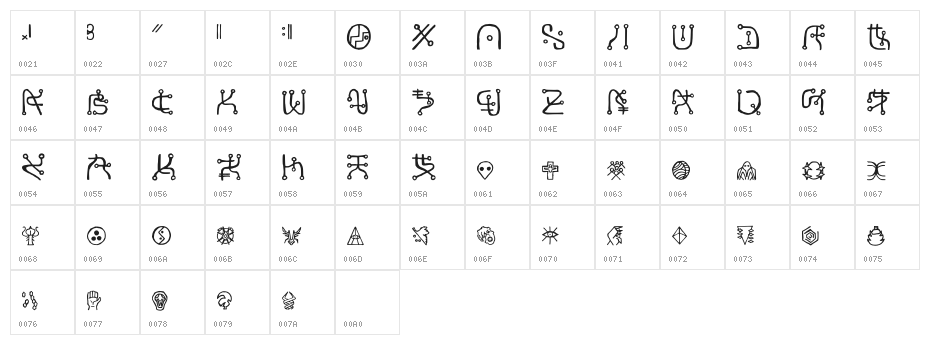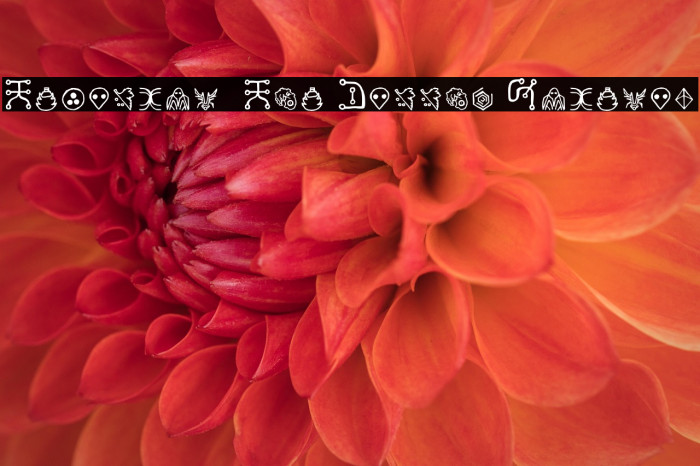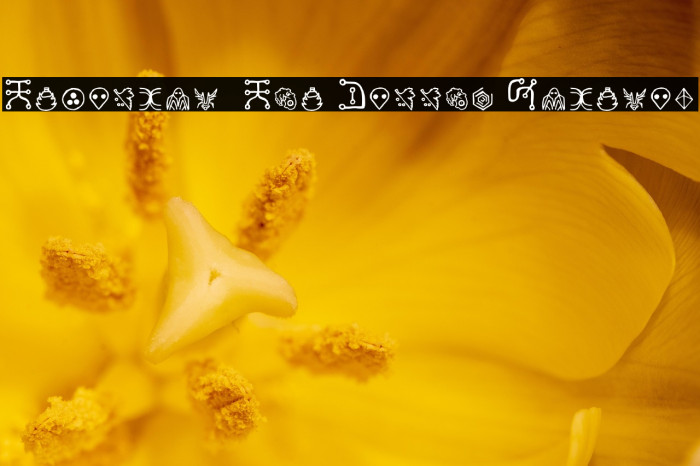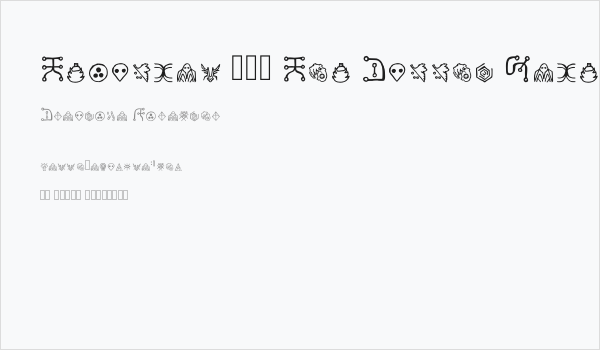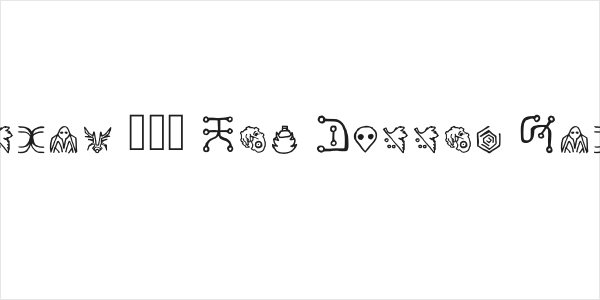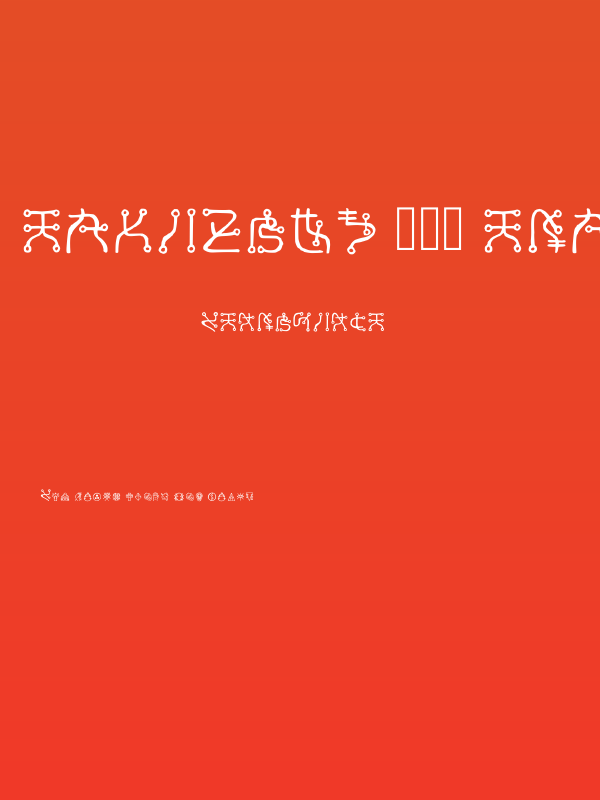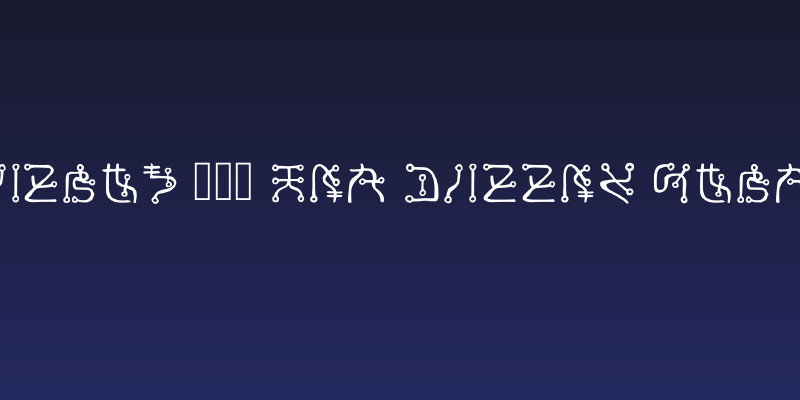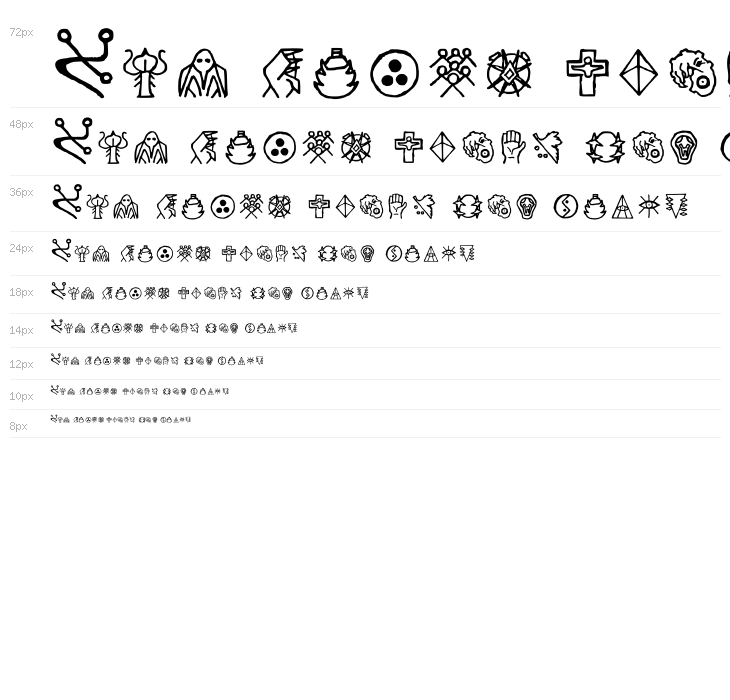
Yuiangel 111 You Cannot Regular Font
Yuiangel 111 You Cannot Regular Description
This font features a highly decorative and abstract design, characterized by intricate and complex shapes that resemble ancient symbols or mystical glyphs. Each character is unique, with swirling lines, dots, and geometric elements that create a sense of mystery and otherworldliness. The font does not follow traditional letterforms, making it more of an artistic expression than a functional typeface. It includes a variety of symbols and shapes that could be interpreted as part of a fictional language or code. This font is visually striking and would be suitable for projects that require a sense of fantasy or the esoteric.
| Use Case | Logos, Artistic projects, Fantasy themes |
| Proposed Projects | Ideal for fantasy-themed designs, game interfaces, or artistic projects requiring a mysterious or ancient aesthetic. |